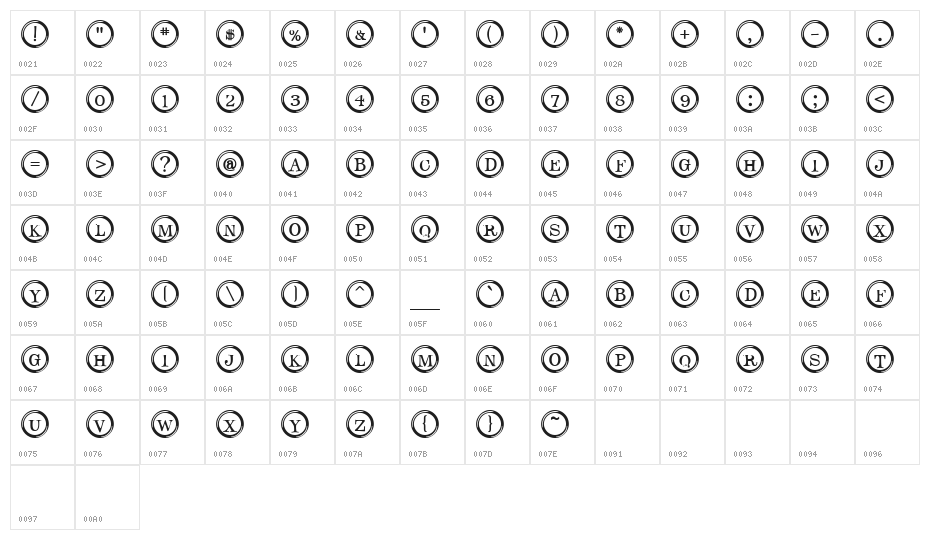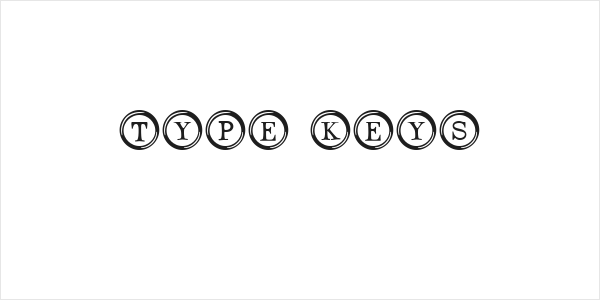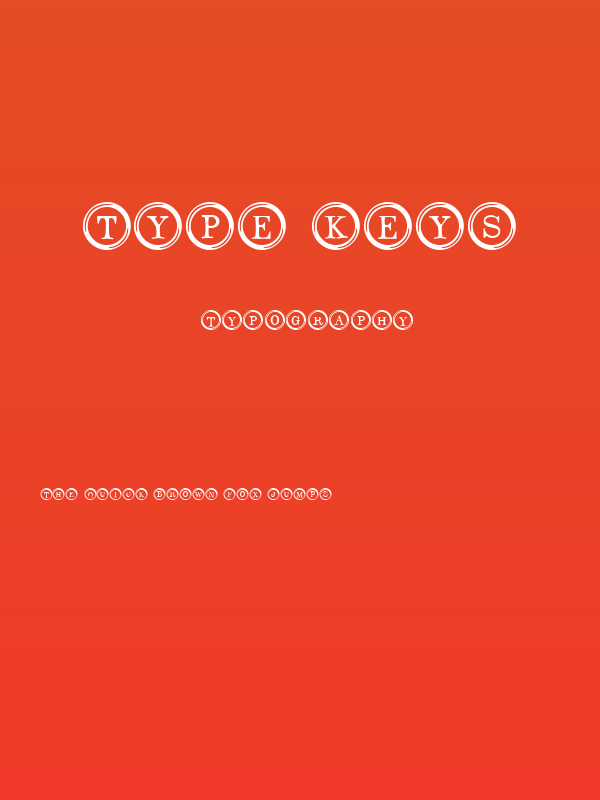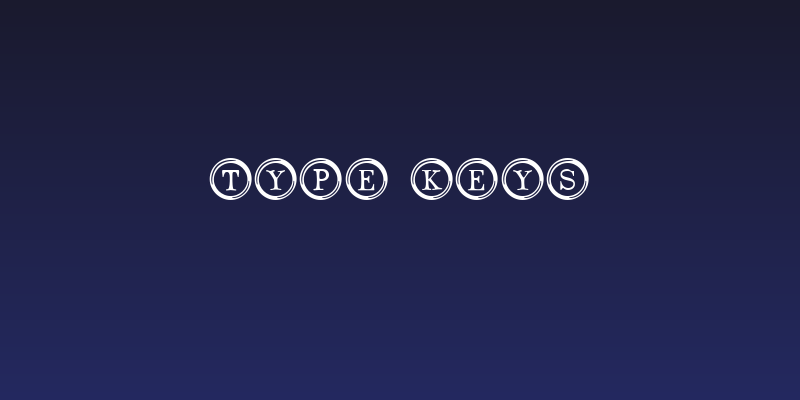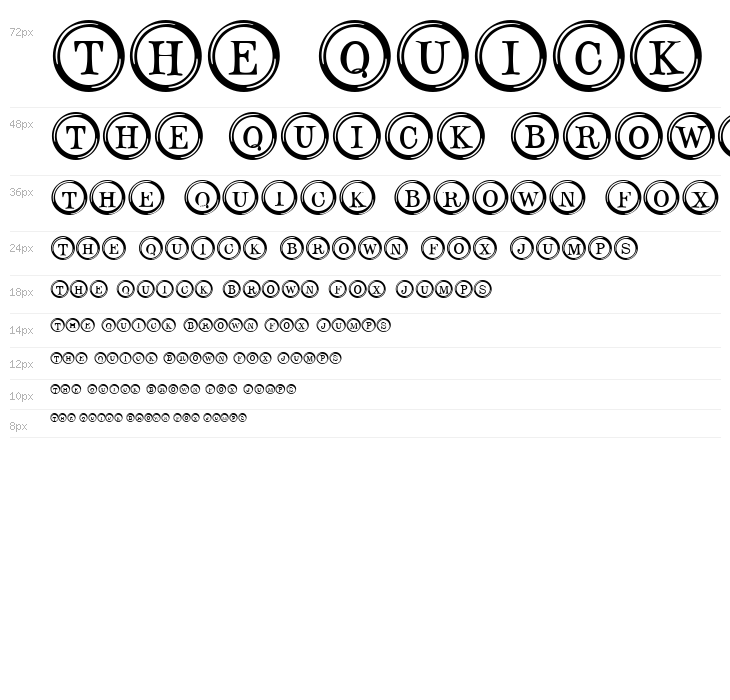
Type Keys Font
Type Keys Description
This font features a unique design reminiscent of vintage typewriter keys, with each character encased in a circular outline. The letters are bold and clear, providing a strong visual impact. The uppercase and lowercase letters maintain a consistent style, with a slight serif touch that adds a classic feel. The numbers and special characters are also enclosed in circles, ensuring uniformity across the font. This design is both decorative and functional, making it suitable for various creative applications. The overall appearance is nostalgic yet versatile, appealing to those looking for a retro aesthetic.
| Overall Style | Vintage |
| Proposed Projects | Ideal for retro-themed designs, vintage posters, branding for nostalgic products, and creative projects requiring a distinctive typewriter style. |